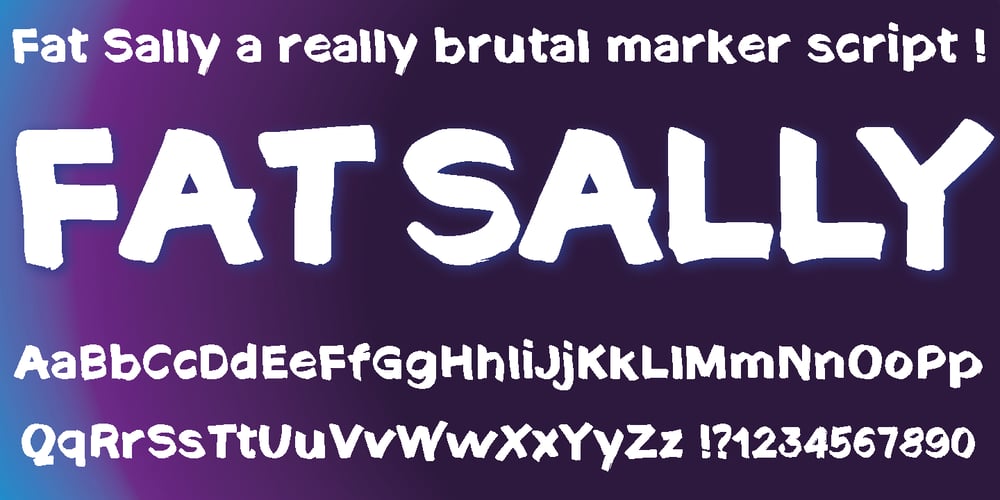
Fat Sally Font Family was designed by Gert Wiescher and published by Autographis. Fat Sally contains 1 styles and family package options. FatSally is written with a broad felt-tip marker, scanned and finished by hand on screen, taking care to emphasize the typical “marker” feeling.